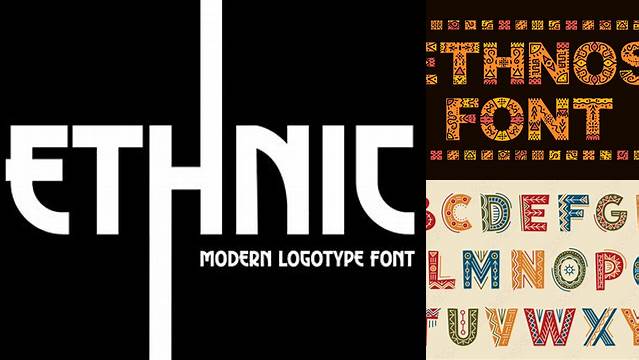
Introduction: Diving into the World of Ethnic Fonts
Hey guys! Are you on the hunt for that perfect ethnic font style free download? You've come to the right place! In the world of design, typography plays a crucial role in conveying the right message and setting the desired tone. Ethnic fonts, with their unique cultural influences and artistic flair, can add a distinctive touch to your projects. Whether you're working on a cultural event poster, a travel blog, or a branding project that needs an international vibe, the right ethnic font can make all the difference. Letβs dive deep into the world of ethnic fonts, exploring what they are, why they matter, and where you can find them for free. We'll also discuss how to use them effectively to enhance your creative endeavors. Think of ethnic fonts as more than just a way to display text; they're a bridge to different cultures and traditions, a way to infuse your work with authenticity and visual interest. So, grab your creative hats, and let's embark on this typographic journey together! Finding the perfect ethnic font is like discovering a hidden gem β it can transform your project from ordinary to extraordinary. But with so many options out there, how do you choose the right one? And more importantly, where do you find these ethnic font style free downloads without breaking the bank? Don't worry, we've got you covered. We'll explore various resources, design tips, and best practices to help you navigate the world of ethnic typography like a pro. From understanding the nuances of different cultural fonts to mastering the art of font pairing, this guide will equip you with the knowledge and skills you need to make your designs truly stand out. So, get ready to unleash your creativity and add a touch of global flair to your next project!
What are Ethnic Fonts?
So, what exactly are ethnic fonts, and why are they so captivating? Ethnic fonts are typefaces that draw inspiration from various cultures and traditions around the world. They often incorporate design elements, motifs, and scripts that are characteristic of specific regions or ethnic groups. These fonts can range from elegant calligraphic styles reminiscent of ancient manuscripts to bold, geometric designs inspired by indigenous art. The beauty of ethnic fonts lies in their ability to evoke a sense of history, heritage, and cultural identity. They can transport your audience to another time and place, adding depth and meaning to your message. Imagine using a font inspired by Japanese calligraphy for a Zen meditation app or a typeface with Mayan influences for a historical documentary. The possibilities are endless! But ethnic fonts are more than just aesthetic choices; they're a way to honor and celebrate cultural diversity. By using these fonts thoughtfully, we can create designs that are not only visually appealing but also culturally sensitive and respectful. It's about understanding the origins and significance of each font and using it in a way that amplifies its inherent beauty and cultural value. When you choose an ethnic font, you're not just selecting a typeface; you're embracing a story, a tradition, and a piece of global heritage. This is why it's so important to approach the use of these fonts with care and consideration, ensuring that your designs are both visually stunning and culturally meaningful. The impact of a well-chosen ethnic font can be profound, transforming your work into a powerful statement of cultural appreciation and artistic expression.
Why Use Ethnic Fonts?
Why should you even bother with ethnic fonts? Well, there are a ton of compelling reasons! First off, they add a unique and authentic touch to your designs. In a world saturated with generic typefaces, ethnic fonts help your work stand out from the crowd. They infuse your projects with character, personality, and a sense of place. Imagine designing a poster for a Latin American film festival β using a font inspired by indigenous scripts would instantly convey the cultural essence of the event. Similarly, if you're creating a website for a travel agency specializing in African safaris, an African-inspired font can evoke the spirit of adventure and exotic landscapes. But the benefits of using ethnic fonts go beyond aesthetics. They also help you connect with your target audience on a deeper level. By incorporating cultural elements into your designs, you can create a sense of belonging and resonate with people who have a shared heritage or cultural interest. This is particularly important in today's globalized world, where cultural sensitivity and inclusivity are highly valued. Furthermore, ethnic fonts can be a powerful tool for storytelling. They allow you to visually communicate the narrative and history behind your project, whether it's a book cover, a museum exhibit, or a historical fiction novel. A font inspired by ancient Egyptian hieroglyphs, for example, can instantly transport your audience to the world of pharaohs and pyramids. In short, using ethnic fonts is about more than just choosing a pretty typeface; it's about making a statement, celebrating diversity, and creating designs that are both visually stunning and culturally meaningful. It's about adding depth, authenticity, and a touch of global flair to your creative endeavors.
Tips for Using Ethnic Fonts Effectively
So, you've got your ethnic font style free download, now what? Using ethnic fonts effectively requires a bit of finesse. You don't want to just slap on a culturally inspired font and call it a day. It's about understanding the font's origins, its nuances, and how it interacts with other design elements. Here are some tips to help you use ethnic fonts like a pro. First and foremost, do your research. Before using an ethnic font, take the time to learn about its cultural background. What is the font's history? What traditions or regions does it represent? Understanding the context of the font will help you use it respectfully and appropriately. Misusing a font can be not only visually jarring but also culturally insensitive. Next, consider the readability. While ethnic fonts can be visually striking, some may be less legible than standard typefaces. If the font is too ornate or complex, it can make your text difficult to read, especially in smaller sizes. Always prioritize readability and choose fonts that are clear and easy on the eyes. This is particularly important for body text and longer passages. Pair wisely. Font pairing is an art, and it's crucial when working with ethnic fonts. Avoid pairing ethnic fonts with other highly stylized fonts, as this can create a cluttered and overwhelming look. Instead, opt for clean, simple fonts that complement the ethnic font without competing with it. Sans-serif fonts often work well as a secondary typeface, providing a visual contrast that enhances the ethnic font's unique character. Use sparingly. Ethnic fonts are best used as accents or highlights, rather than for large blocks of text. Overusing an ethnic font can dilute its impact and make your design feel busy. Use it strategically to draw attention to key elements, such as headings, titles, or logos. Respect the culture. This is perhaps the most important tip of all. Use ethnic fonts in a way that is respectful and authentic. Avoid using them in contexts that could be considered offensive or stereotypical. When in doubt, seek feedback from people who are familiar with the culture or tradition that the font represents. By following these tips, you can harness the power of ethnic fonts to create designs that are not only visually stunning but also culturally sensitive and meaningful. Remember, typography is a powerful tool, and it's up to us to use it responsibly and creatively.
Examples of Stunning Designs Using Ethnic Fonts
Let's get inspired! To truly appreciate the beauty and versatility of ethnic fonts, let's take a look at some examples of stunning designs that incorporate them effectively. These examples will showcase how ethnic fonts can elevate your projects and add a touch of cultural flair. Imagine a travel brochure promoting a trip to Morocco. The designers could use an Arabic-inspired font for the headings and titles, evoking the rich history and culture of the region. Paired with vibrant images of Moroccan architecture and landscapes, the font would create a cohesive and captivating visual experience. Another example could be a branding project for a Mexican restaurant. A font with bold, geometric shapes inspired by Aztec or Mayan art could be used for the logo and signage, instantly conveying the restaurant's cultural identity. The font could be paired with bright colors and traditional Mexican motifs to create a festive and authentic atmosphere. Think about a book cover for a historical novel set in ancient Japan. A calligraphy-style font could be used for the title, adding an air of elegance and authenticity. The cover design could also incorporate elements like cherry blossoms or samurai swords, further enhancing the Japanese theme. For a music festival celebrating African music and culture, a font with tribal-inspired patterns could be used for the event posters and promotional materials. The font could be combined with vibrant colors and images of African musicians and dancers, creating a high-energy and visually striking campaign. These examples demonstrate the power of ethnic fonts to enhance your designs and create a strong cultural connection. By carefully selecting and using ethnic fonts, you can transform your projects from ordinary to extraordinary, adding depth, authenticity, and a touch of global flair. Remember, the key is to use these fonts thoughtfully and respectfully, understanding their cultural context and using them in a way that amplifies their inherent beauty and meaning. So, go ahead and explore the world of ethnic fonts β you'll be amazed at the possibilities!
Conclusion: Embrace the Diversity of Ethnic Fonts
In conclusion, the world of ethnic fonts is a vast and fascinating one, offering a wealth of creative possibilities. By embracing the diversity of these typefaces, you can add a unique and authentic touch to your designs, creating visuals that are both stunning and culturally meaningful. We've explored what ethnic fonts are, why they matter, where to find them for free, and how to use them effectively. We've also looked at examples of stunning designs that showcase the power of ethnic typography. Remember, using ethnic fonts is about more than just aesthetics; it's about celebrating cultural diversity, honoring traditions, and connecting with your audience on a deeper level. It's about using typography as a tool for storytelling and visual communication. So, the next time you're working on a design project, consider incorporating an ethnic font. Take the time to research its origins, understand its nuances, and use it in a way that is both creative and respectful. You'll be amazed at the impact it can have on your work. Whether you're designing a website, a poster, a book cover, or a logo, ethnic fonts can help you create visuals that are truly unique and unforgettable. So, go ahead, explore the world of ethnic typography and unleash your creativity. The possibilities are endless, and the rewards are immense. Embrace the diversity of ethnic fonts, and let your designs speak to the world!